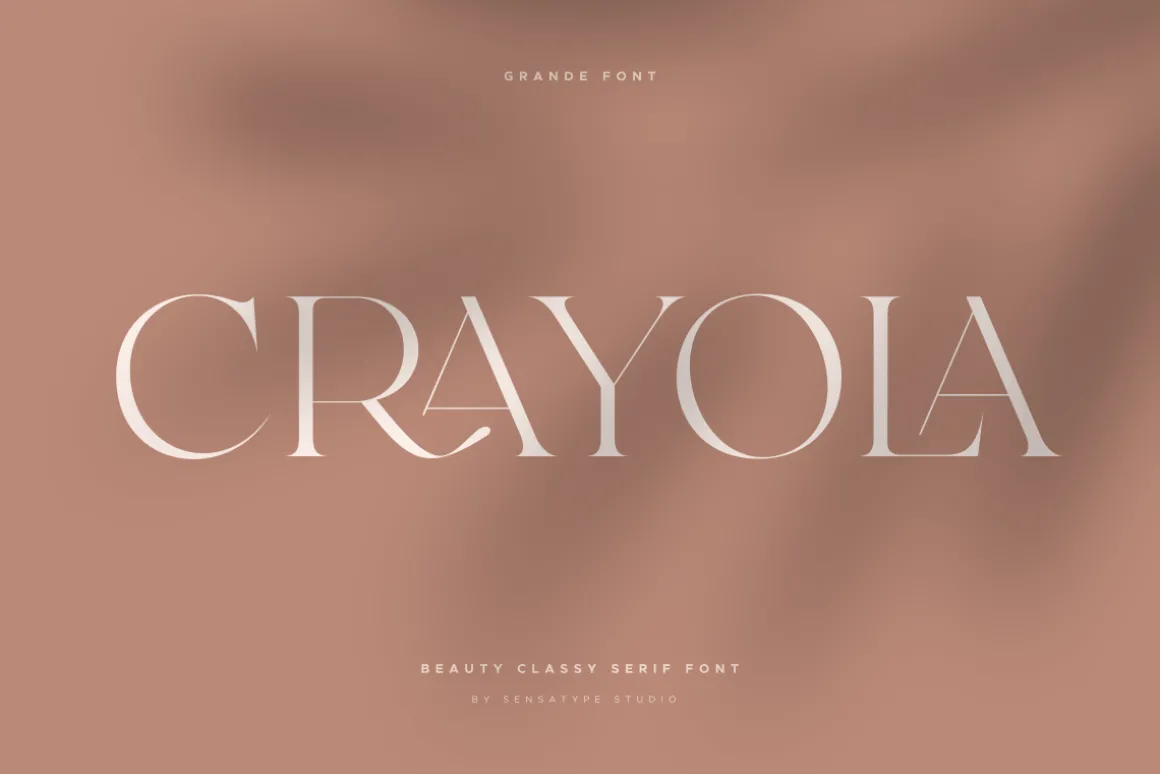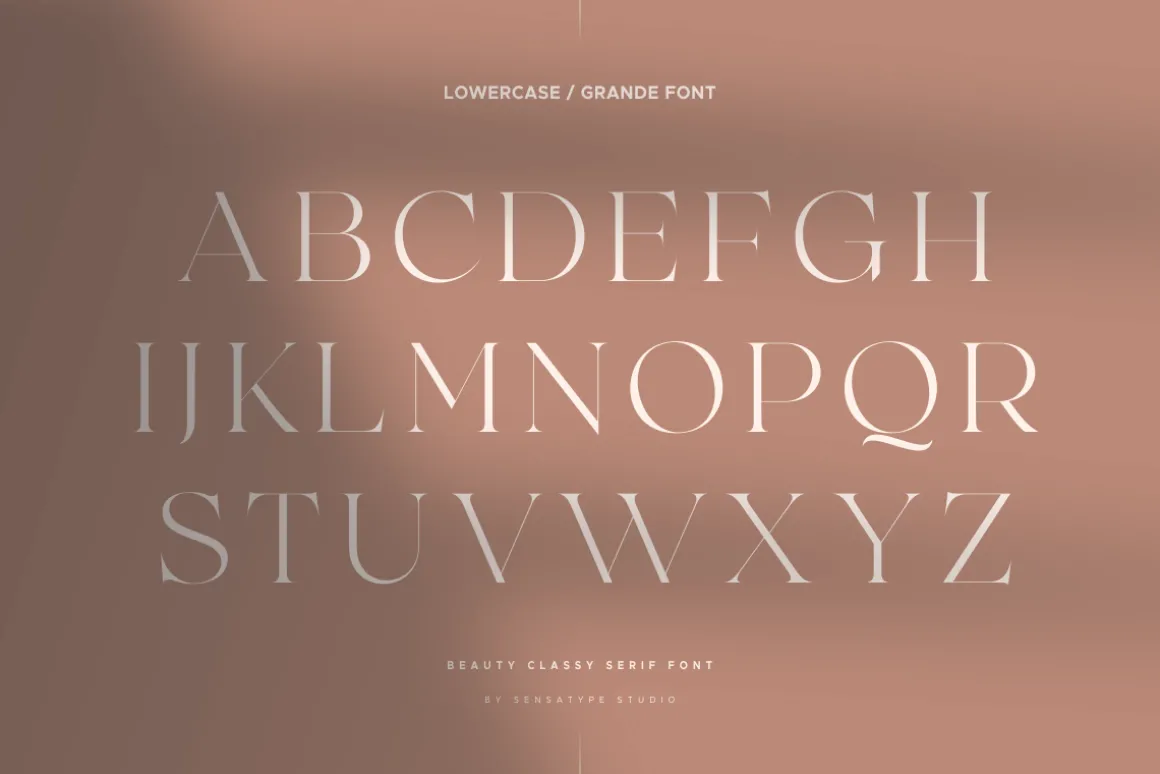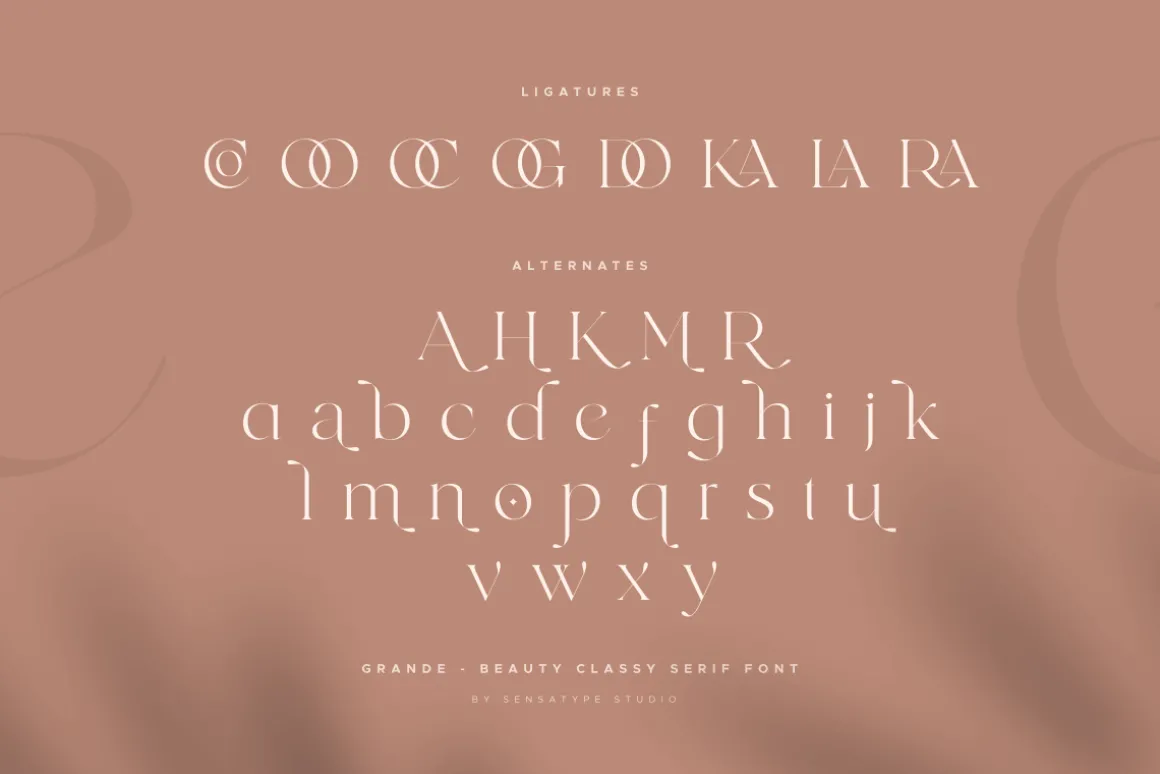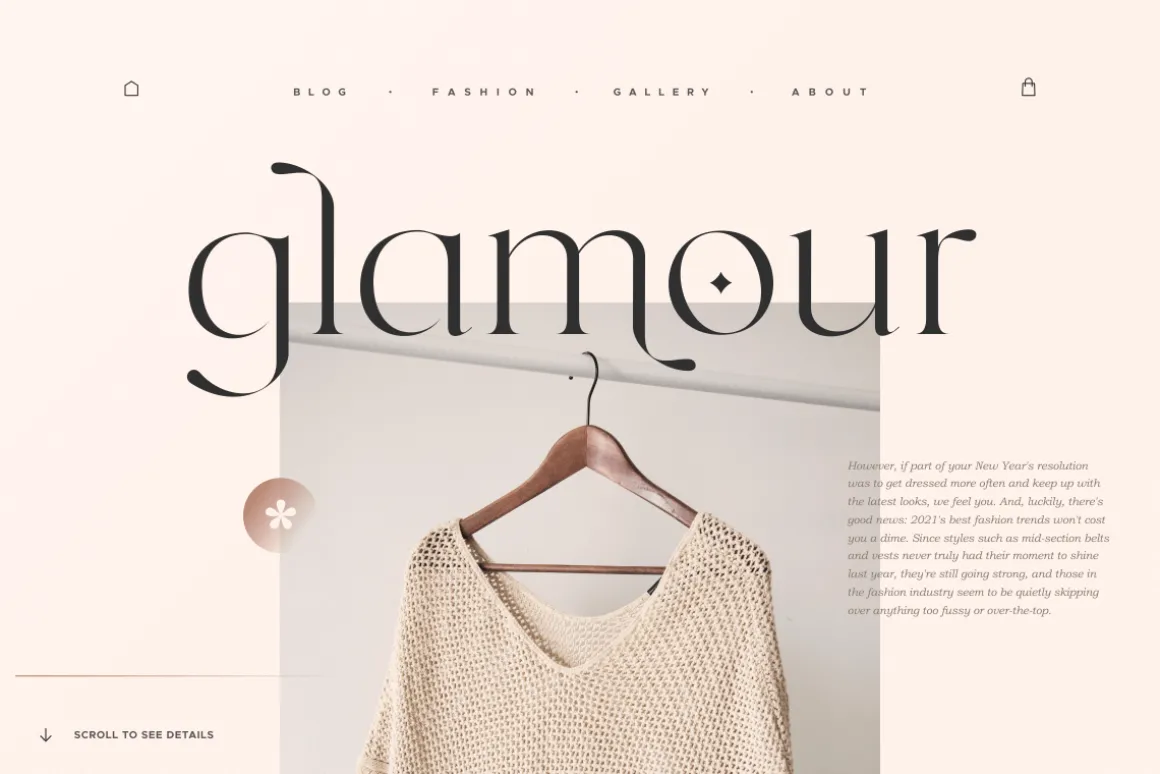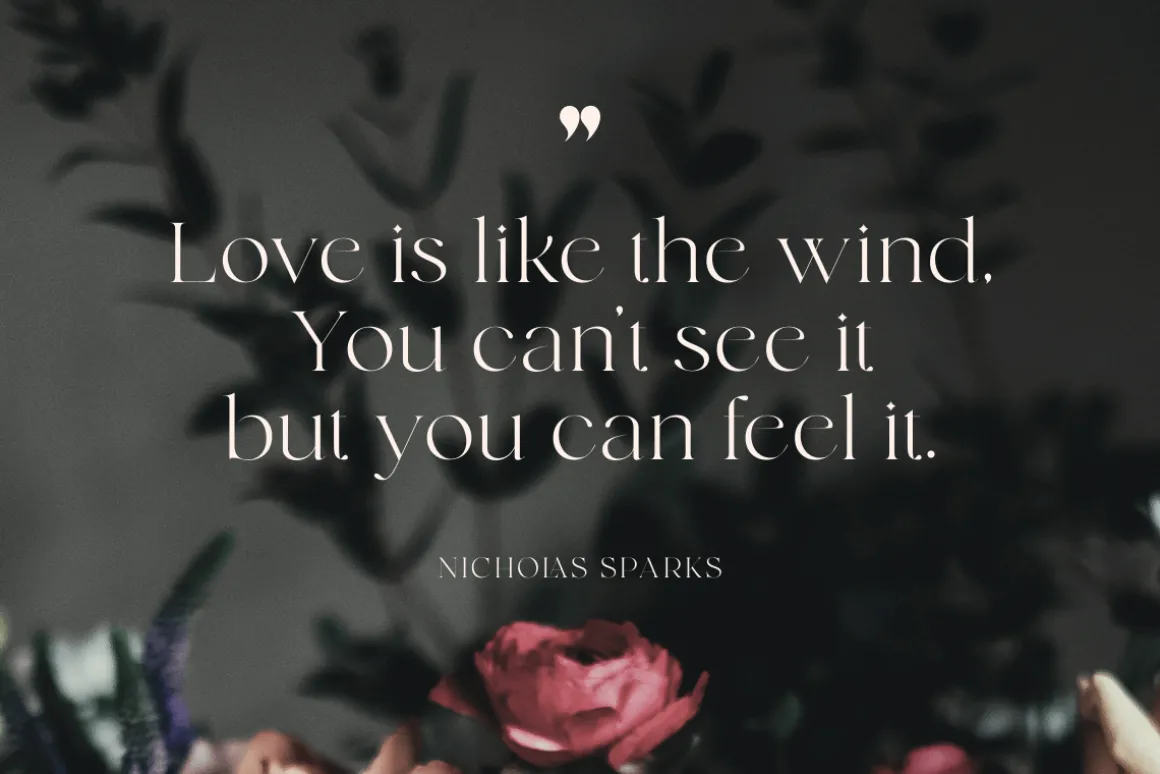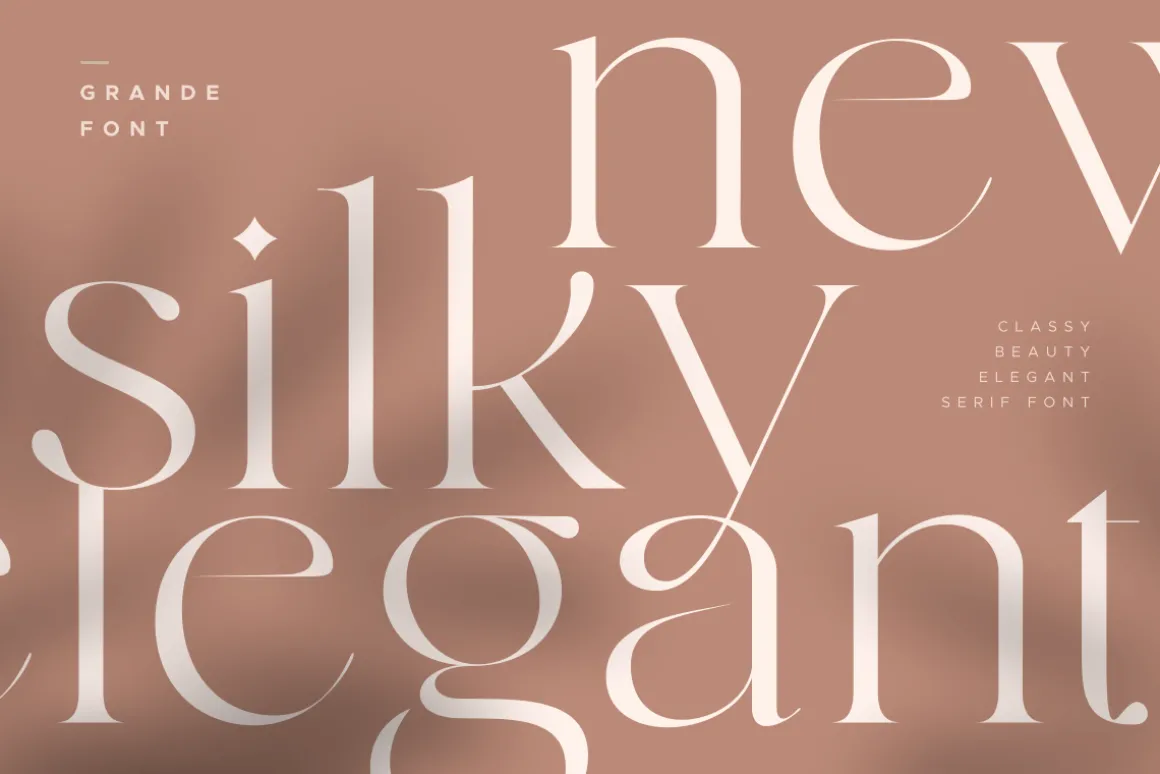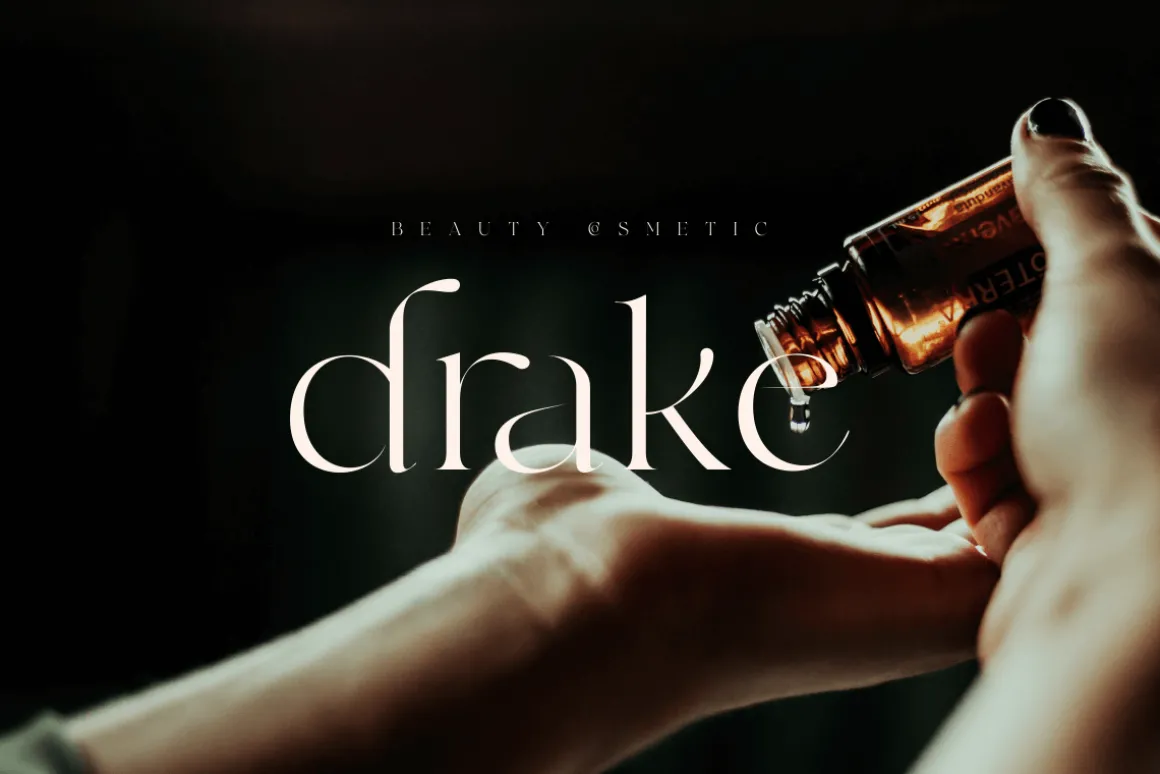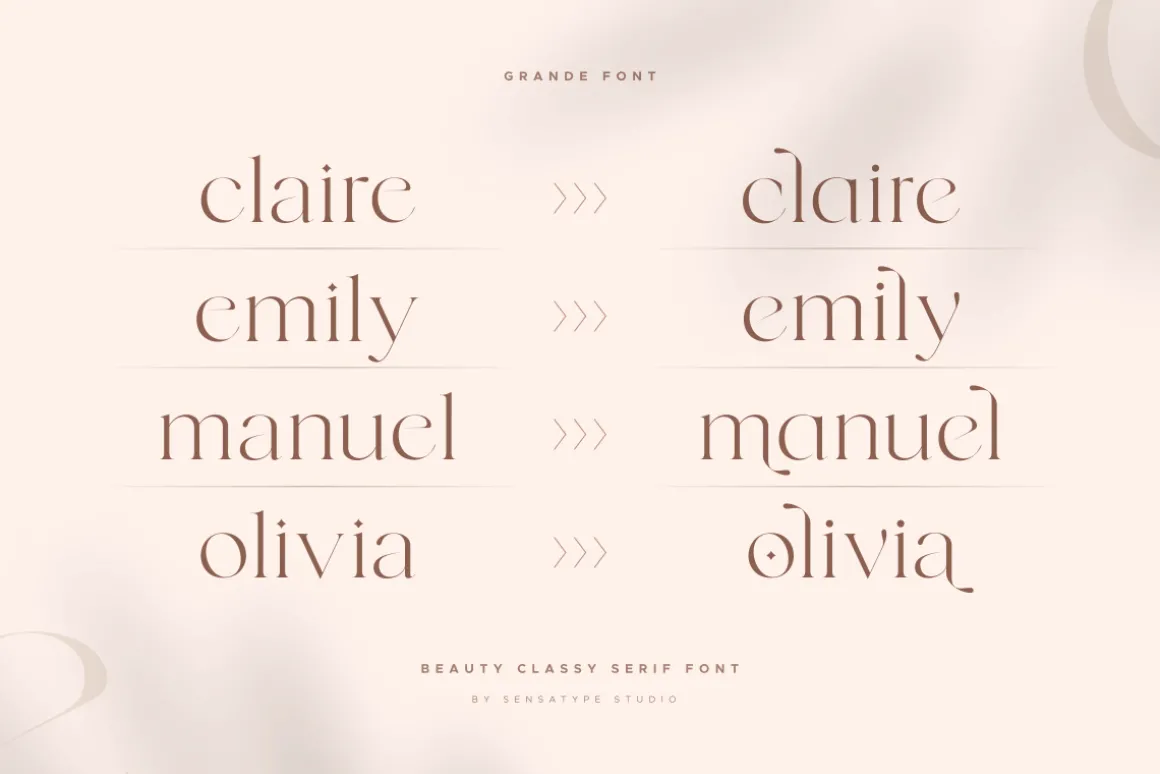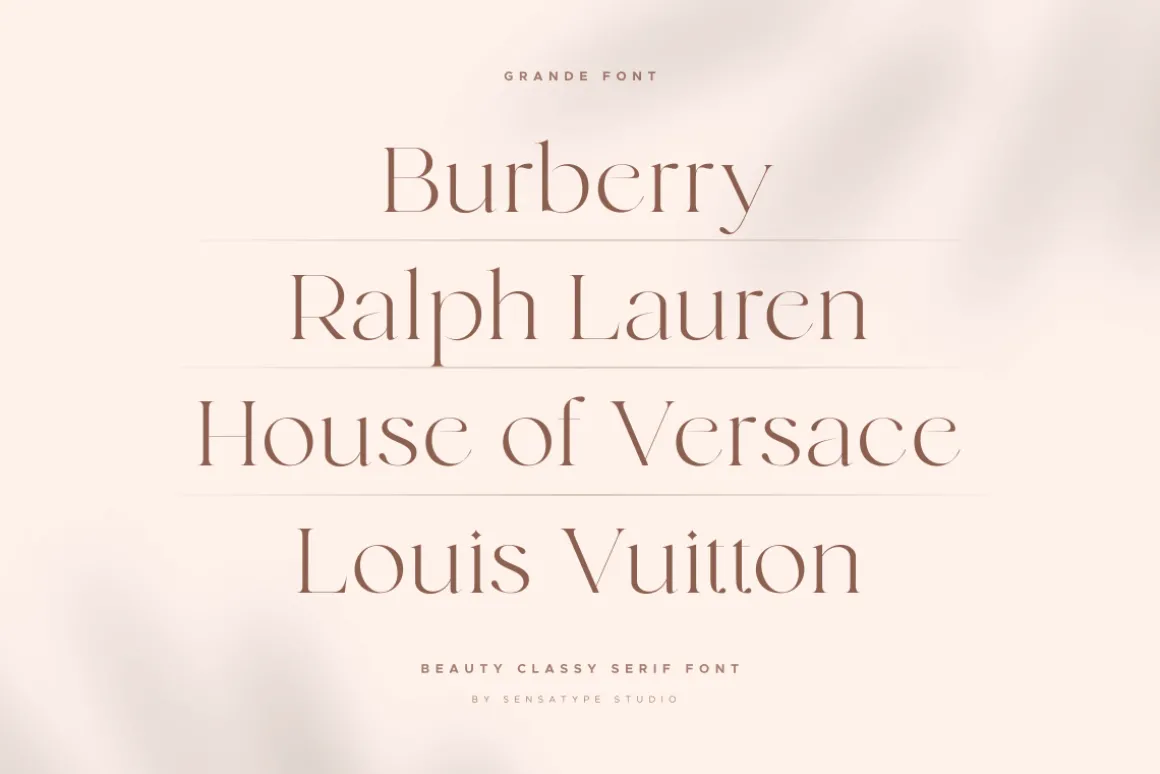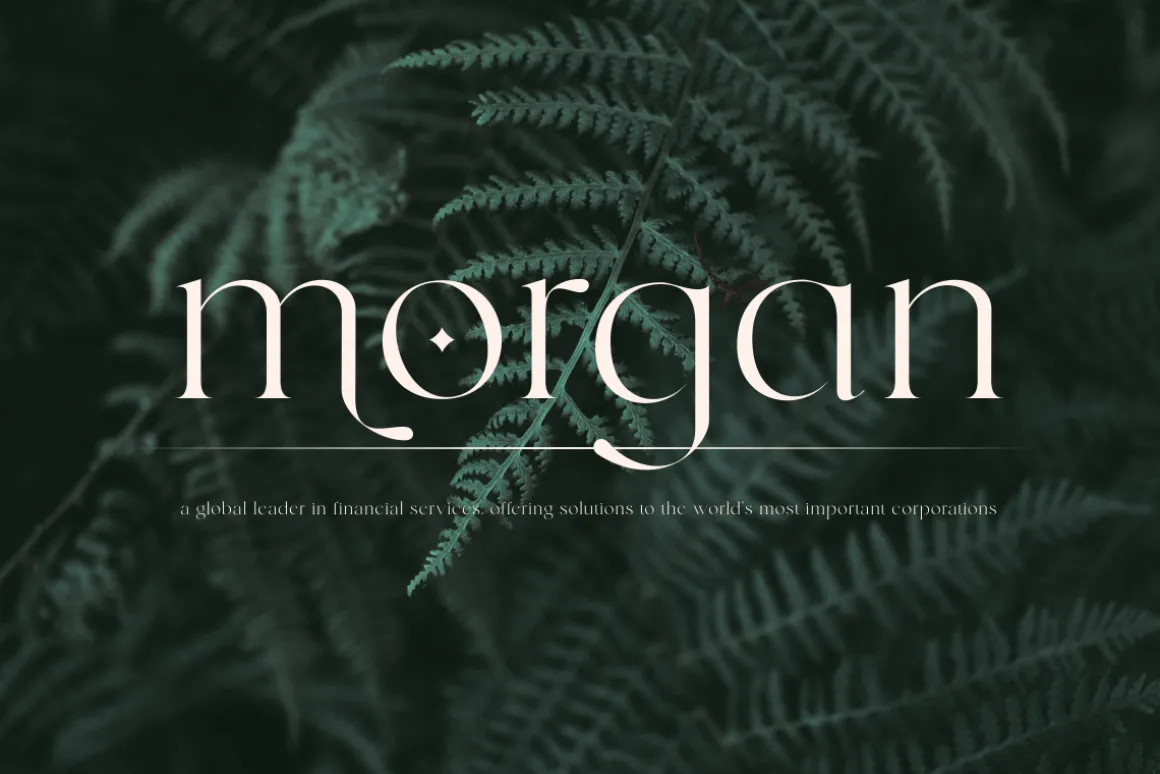
grande font is a collections of a modern, feminine, beauty and classy characters, give you unique looks for any branding or logo design needs. grande font is mix of beauty and classy feels, which has a wide range of uses but was mainly intended for logos, perfumes, fashion magazines, invitations, or book covers. Not only you’ll find many decorative characters, but also amount of unique alternate characters will make you really adore this font.
grande is also included full set of:
- uppercase and lowercase letters
- alternates and ligatures
- multilingual characters
- numerals
- punctuations